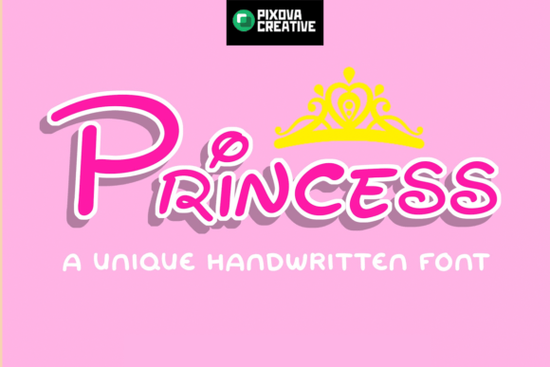
Princess Font is a standout choice for anyone looking to add a whimsical, hand-drawn feel to their design projects. Whether you're creating invitations, logos, or social media graphics, this font brings a sense of magic and charm that's hard to replicate. Its elegant strokes and playful style make it ideal for fairy tale themes, romantic designs, and anything that needs a touch of fantasy.
If you're exploring script fonts, Princess Font fits well within the broader category of creative typography. It’s especially useful for those working on wedding-related projects, holiday designs, or rustic-themed crafts. The font’s unique character makes it versatile enough for both digital and print use, ensuring your work stands out without feeling overdone.
For designers and crafters, finding the right font can be a game-changer. Princess Font offers a balance between readability and artistic flair, making it easy to use in a variety of contexts. It works well with other fonts, allowing you to create layered designs that feel cohesive yet imaginative. This makes it a great addition to any designer’s toolkit.
How to Use Princess Font in Your Projects
One of the best things about Princess Font is its adaptability. You can use it for headings, logos, or even body text depending on the project. For example, if you're designing a wedding invitation, this font can add a soft, elegant touch that complements traditional elements. It also pairs well with other fonts like wedding signature fonts, helping you create a more dynamic layout.
When using Princess Font, keep the design simple to let the font shine. Overloading your design with too many elements can distract from its beauty. Instead, focus on clean spacing and thoughtful placement to highlight its unique style. This approach works especially well for print-on-demand sellers who want to offer visually appealing products without complicated design setups.
Best Uses for Princess Font
- Fairy tale-themed designs – Perfect for storybooks, children’s illustrations, or themed events.
- Romantic and wedding projects – Adds a delicate, personal touch to invitations and signage.
- Holiday and seasonal designs – Ideal for Christmas, winter, or festive banners.
- Handmade and rustic crafts – Complements farmhouse or vintage-style aesthetics.
Princess Font is also a great option for small businesses looking to create a memorable brand identity. Its distinct style helps differentiate your work from others, making it easier for customers to recognize and remember your designs. Whether you're selling custom artwork or creating promotional materials, this font can help you stand out in a crowded market.
Final Thoughts
Princess Font is more than just a stylish choice it’s a tool that can elevate your creative work in subtle but meaningful ways. Its hand-drawn look gives it a personal, artisanal feel that resonates with many audiences. Whether you're a designer, crafter, or small business owner, this font offers a fresh and functional way to express your creativity.